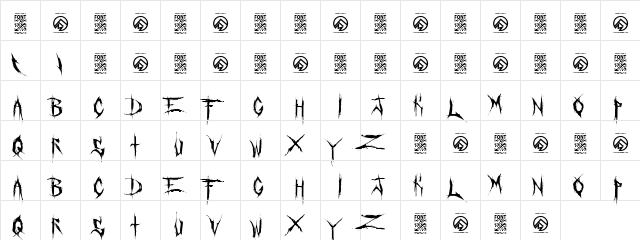
Crucifixion Regular
Design Context for Crucifixion Typeface
Crucifixion is a composed and adaptable typeface that performs quietly and consistently across a wide range of design contexts.